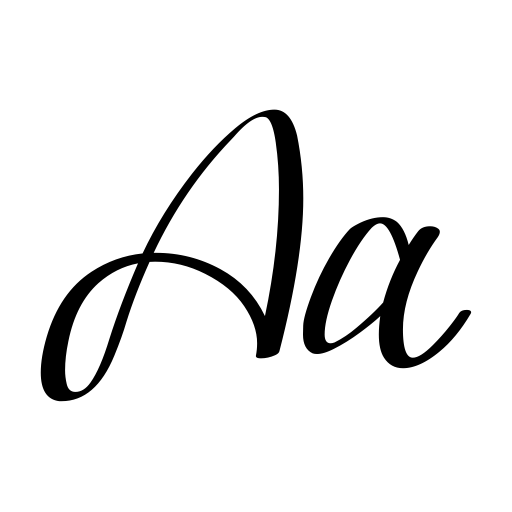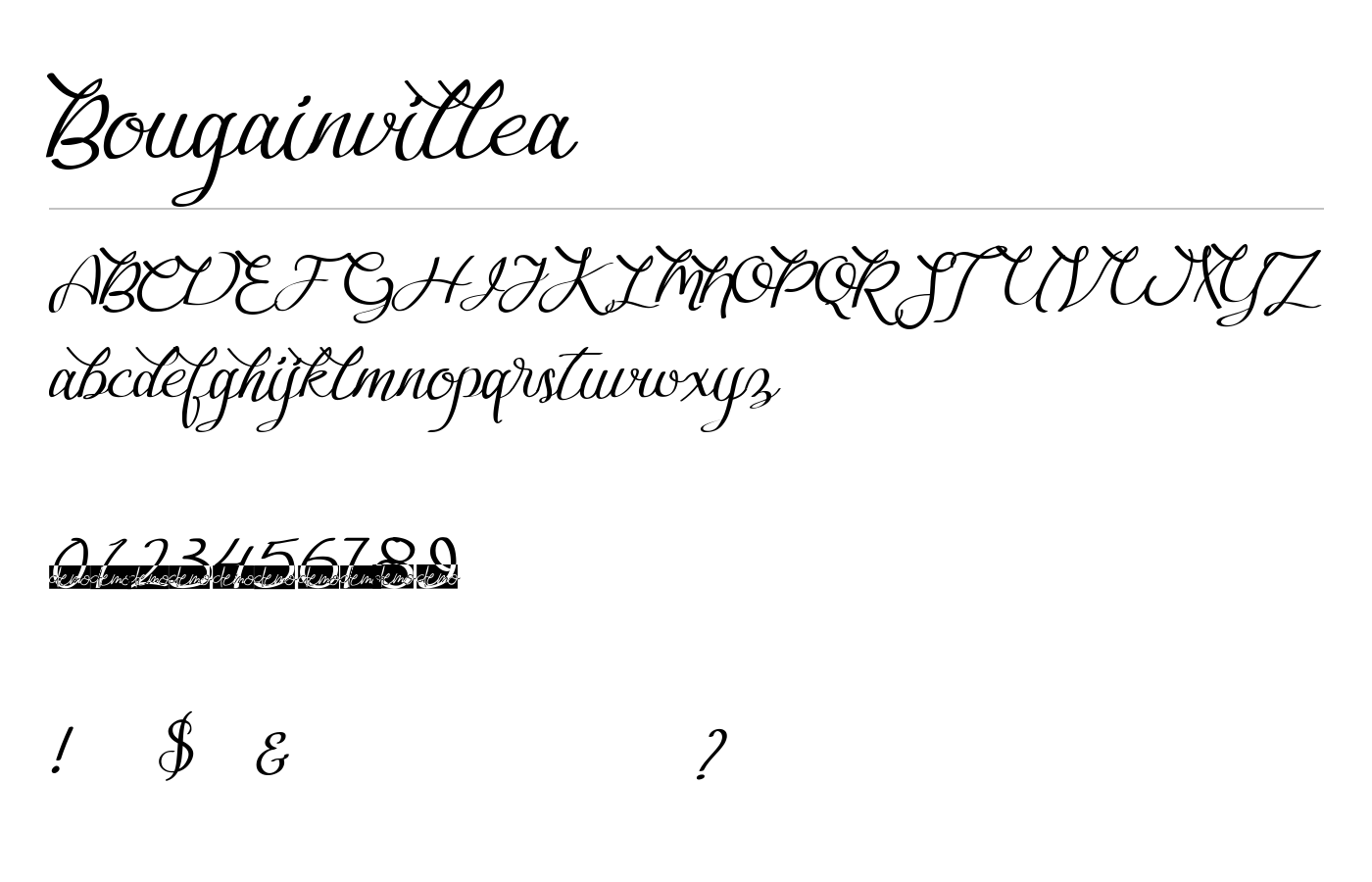
Bougainvillea is an elegant script font featuring delicate, flowing strokes with a high contrast between thin and thick lines, giving it a graceful and sophisticated feel. Its slender, ornamental letterforms with ornate swashes and curls make it perfect for luxury branding, wedding invitations, and high-end editorial designs where a refined and decorative touch is desired. This font works best in display settings, adding a romantic and artistic flair to logos and headlines.
Bougainvillea Font
About Bougainvillea Font
| Font family | Bougainvillea Font |
| Designer | Imaginatype |